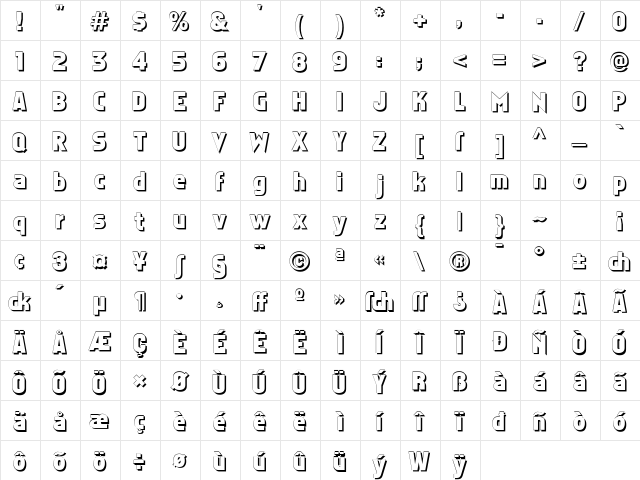
Faktos Shadow Regular Font Preview
Faktos Shadow Regular
Faktos Shadow Regular Font Details
Design Context for Faktos Shadow Typeface
Faktos Shadow is built around its visual character rather than neutral utility — its distinctive forms are designed to make an impression at display sizes.
Font Pairing: Pair with a clean neutral sans-serif for body copy to let Faktos Shadow's character lead without overwhelming the composition.
Pro Tip: Use Faktos Shadow exclusively at display sizes — it was designed to be seen, not read at length. Let a neutral companion handle body copy.